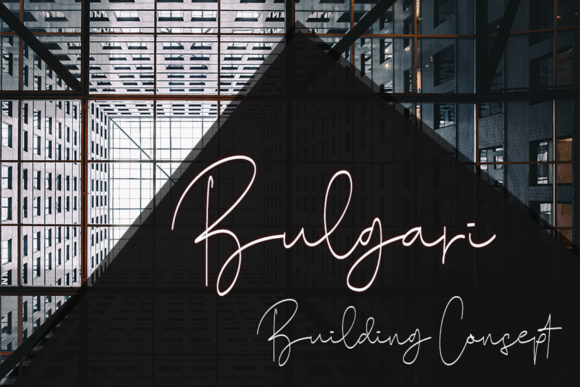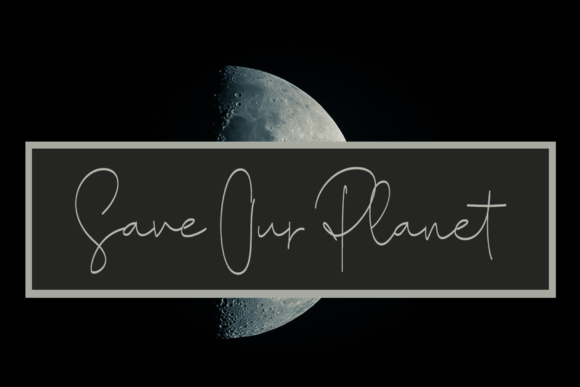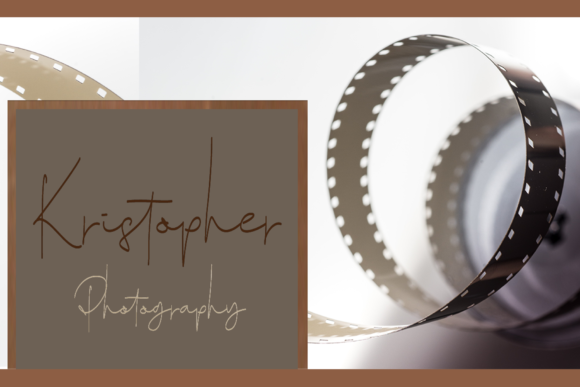
Introduction to Santha Cruze Font
Remember that moment when you’re working on a creative project, and you’re struggling to find the perfect font to match your design vision? You’ve spent hours browsing through fonts, but nothing seems to capture the essence of your idea. That’s where the Santha Cruze Font comes in – a delicate and elegant handwritten font that’s about to become your new go-to design resource.
With its distinct and well-rounded letters, the Santha Cruze Font is a true masterpiece that will elevate your designs to the next level. Whether you’re working on a free download project or a high-quality print material, this font is sure to impress. Its incredibly versatile style makes it perfect for a wide range of creative projects, from wedding invitations to social media graphics.
Key Features of Santha Cruze Font
- Unique, hand-drawn style with a distressed aesthetic, adding a touch of elegance to any design
- Supports a wide range of languages and characters, making it a versatile design resource
Honest Review: Santha Cruze Font
I recently stumbled upon the Santha Cruze Font, and I must say it’s a high-quality design resource that caught my attention. As a designer, I’m always on the lookout for unique and creative fonts to enhance my projects.
What works well with this font is its versatility – it can be used for a variety of creative projects, from branding to digital media. The font also features a transparent background, making it easy to pair with any design element. ✨ I appreciate the attention to detail and the clean design aesthetic.
Here are some of the key features of the Santha Cruze Font:
- High-quality design with a clean aesthetic
- Transparent background for easy pairing
However, I do have some limitations to note. ⚠️ The font may not be suitable for very small text sizes, as it can become difficult to read. Additionally, the font’s design is quite unique, so it may not appeal to every designer’s taste.
Overall, I’m impressed with the Santha Cruze Font and would recommend it to designers looking for a high-quality, creative font for their projects. With its versatility and clean design, it’s a great addition to any design resource library.
Getting the Most Out of Santha Cruze Font
To get the most out of the Santha Cruze Font, experiment with different font sizes, colors, and combinations. You can also use it in conjunction with other design elements, such as images and vectors, to create visually striking designs.
The Santha Cruze Font is commonly used in creative projects, including logos, business cards, and brochures. Its high-quality design and transparent background make it an excellent choice for designers who want to create professional-looking designs.